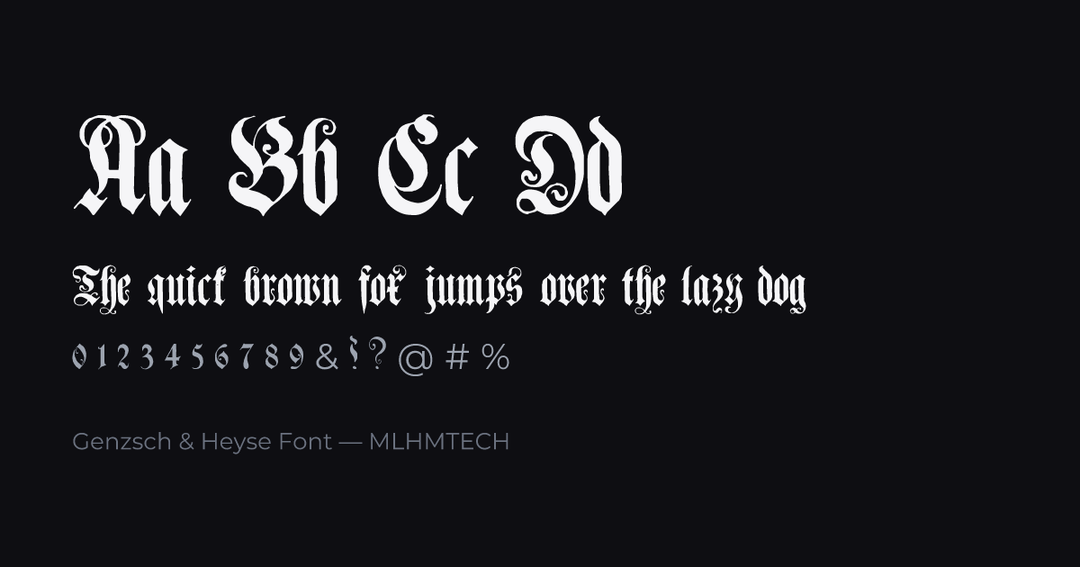
Genzsch & Heyse Font
A classic serif typeface with vintage flair, ideal for thumbnails and bold headlines. Includes TTF file for easy installation.
Genzsch & Heyse is a timeless serif font that brings a touch of old-world elegance to modern designs. Its strong, readable letterforms make it perfect for eye-catching thumbnails, titles, and branding.
Use it for headlines, logos, or any project that needs a bold, classic look. The font is easy to install and works seamlessly across Windows and Mac.